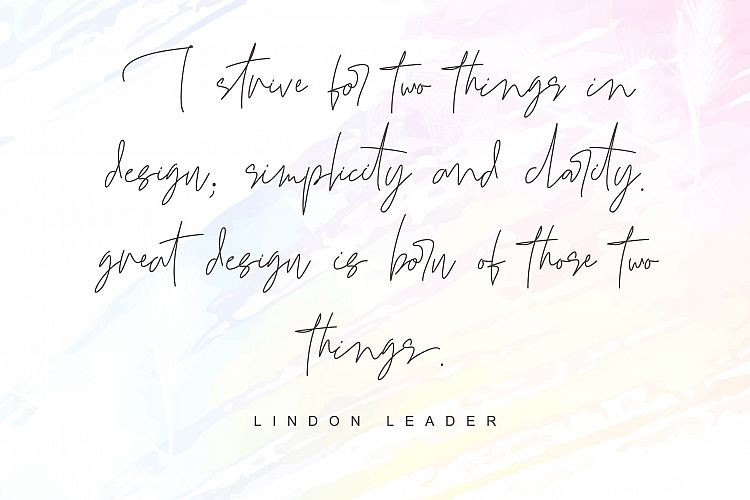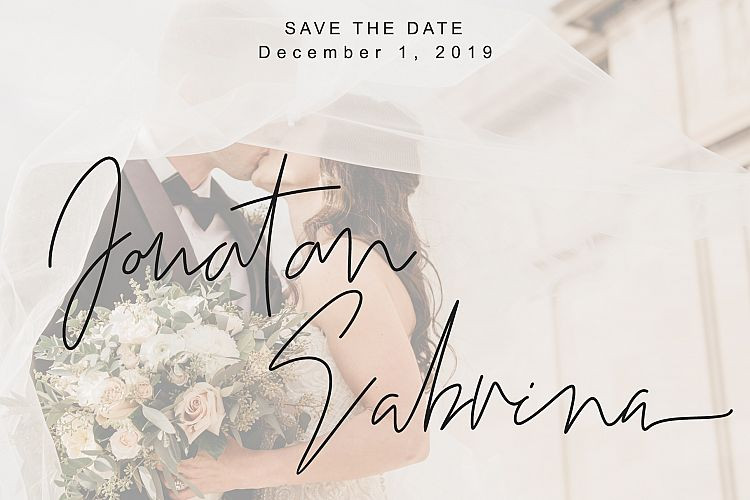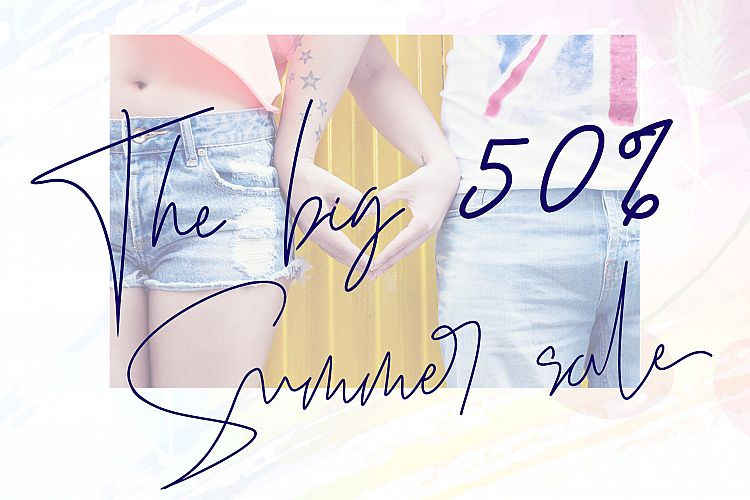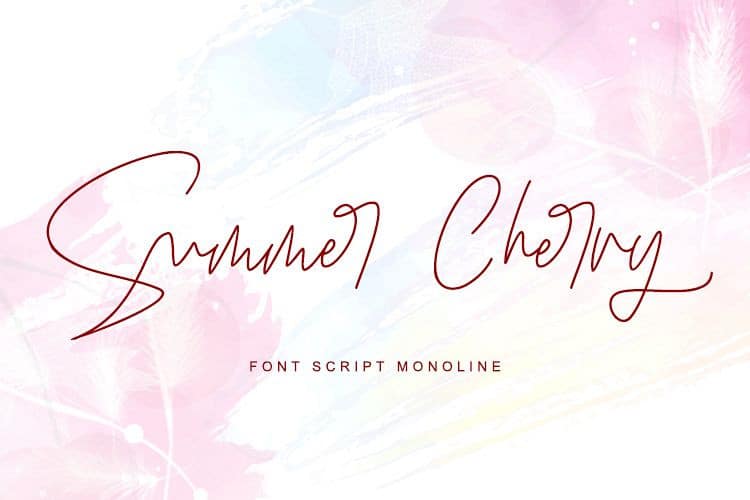
Summer Cherry Script Font
Hello world..!! This is a handwritten script font with a monoline and natural style, this font is great for your next creative projects. Introducing Summer Cherry Font! It’s designed and shared by letterara. Summer Cherry Script is perfect for beautyfull logo, elegant logos, upscale packaging, wedding stationery, websites, and any other projects requiring a handwritten and luxurious touch. A wide range of swashes (a-z) and alternates (A-Z, a-z) are included so that you can give your logo or name a custom, hand-calligraphy look.